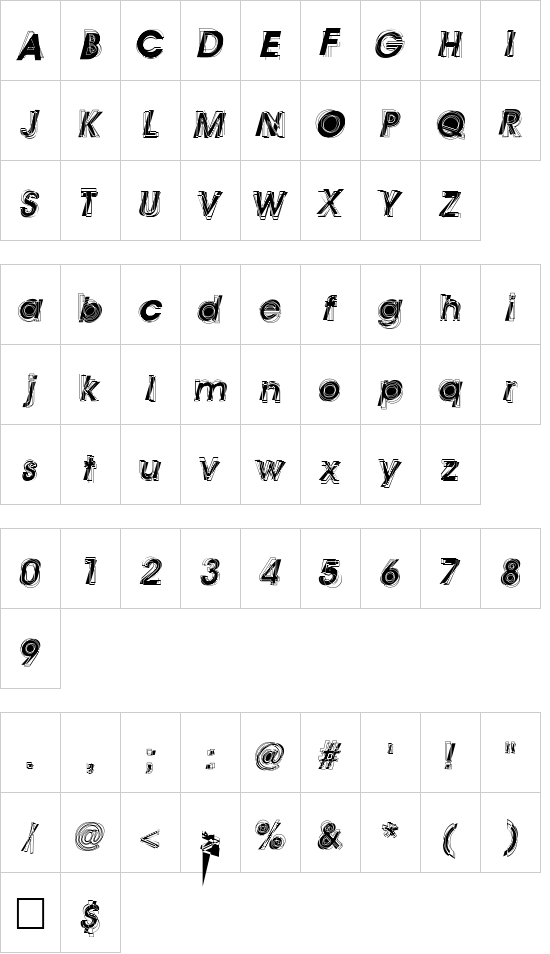
Astigma has a decorative, slightly off-kilter character, with shapes that tilt and bend in unexpected ways to give text an artistic, hand-built edge. The letters do not sit perfectly upright or perfectly even, and that deliberate irregularity is exactly what makes them feel distinctive and expressive rather than tidy, mechanical, and easy to overlook.
It is a good fit for concert flyers, creative branding, magazine headlines, and social media covers that should stand apart from cleaner, more conventional type. Astigma is free to download as a TrueType file, and you can preview it with your own text to see how its unusual shapes play across a line.